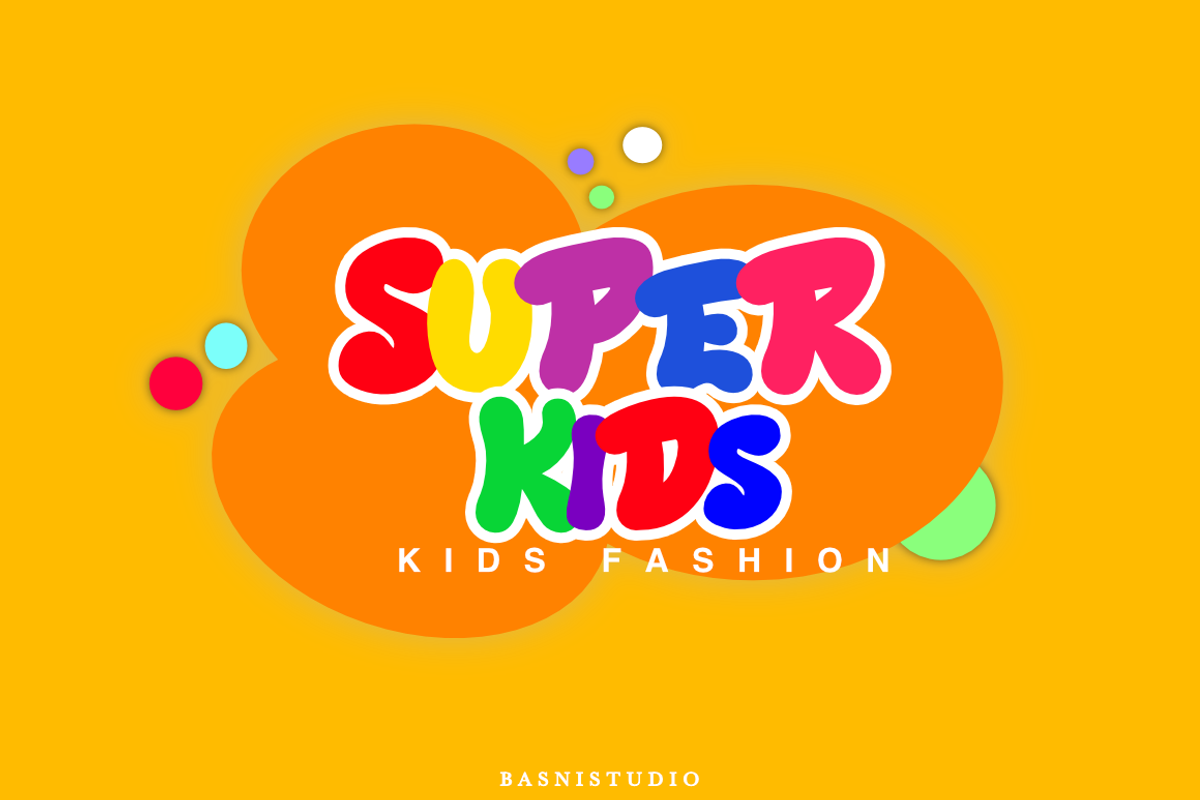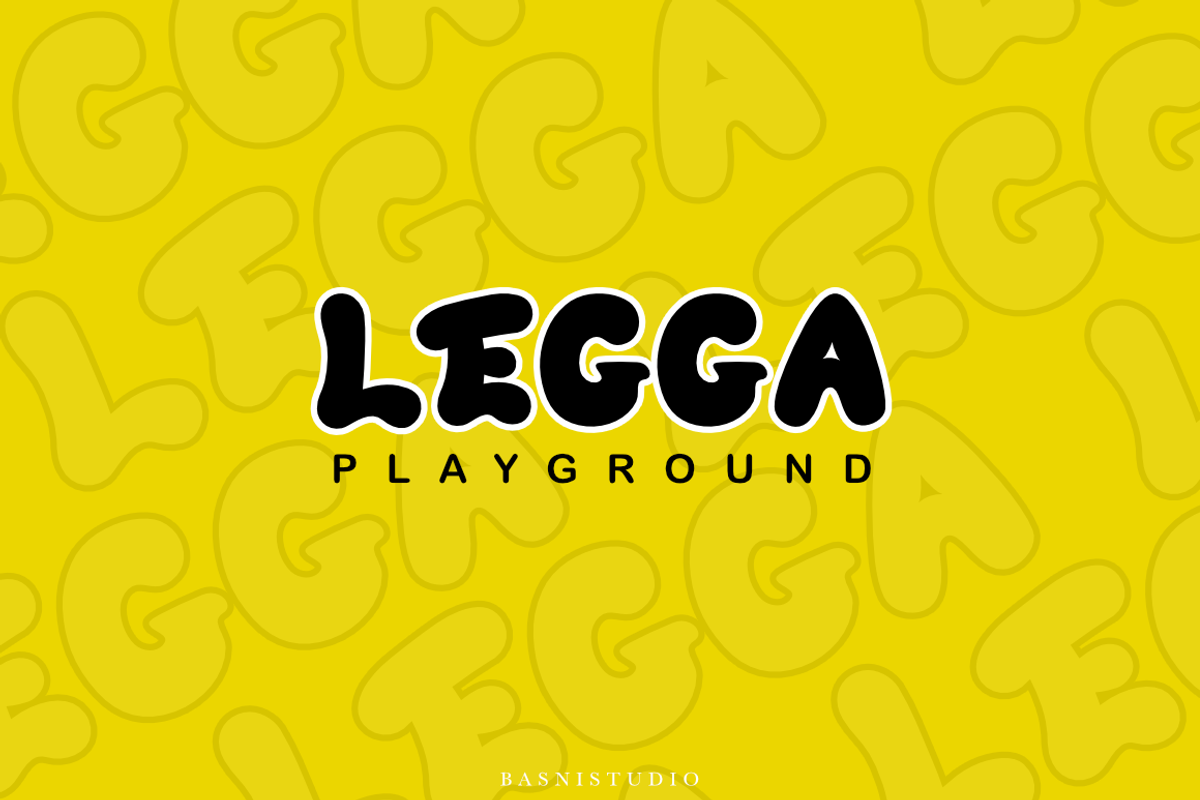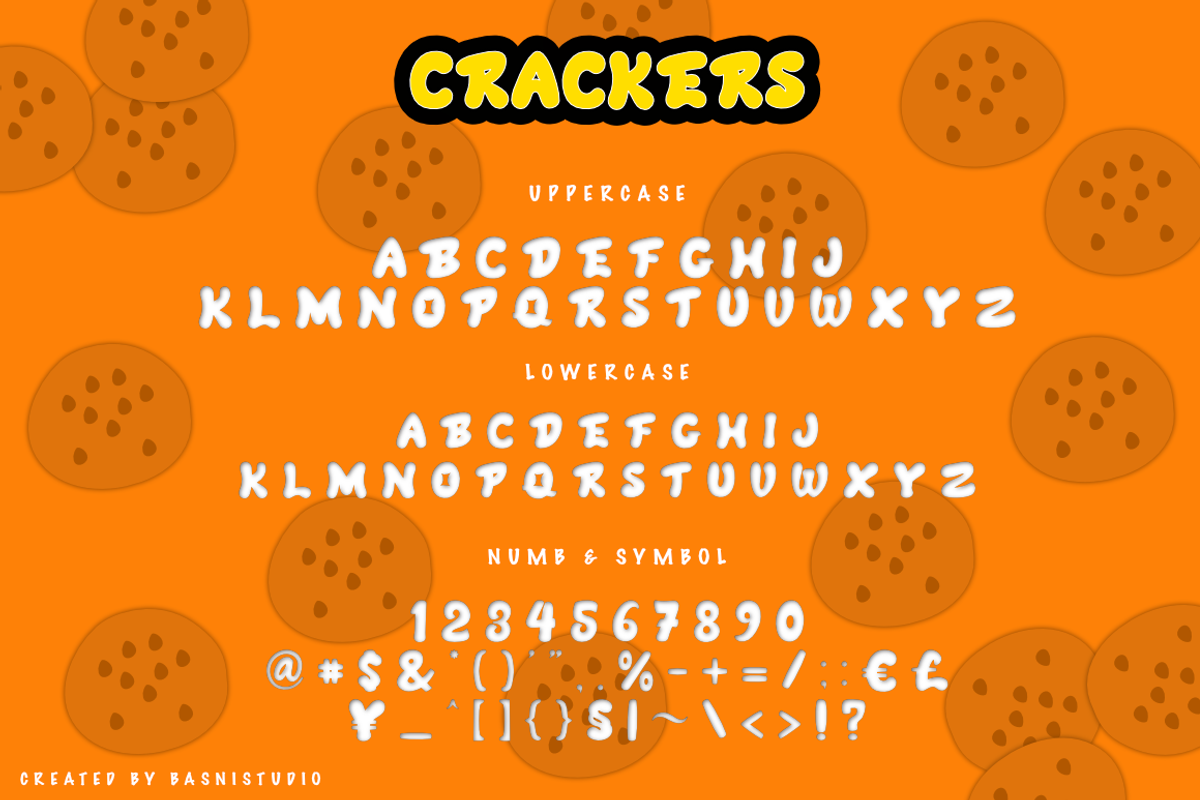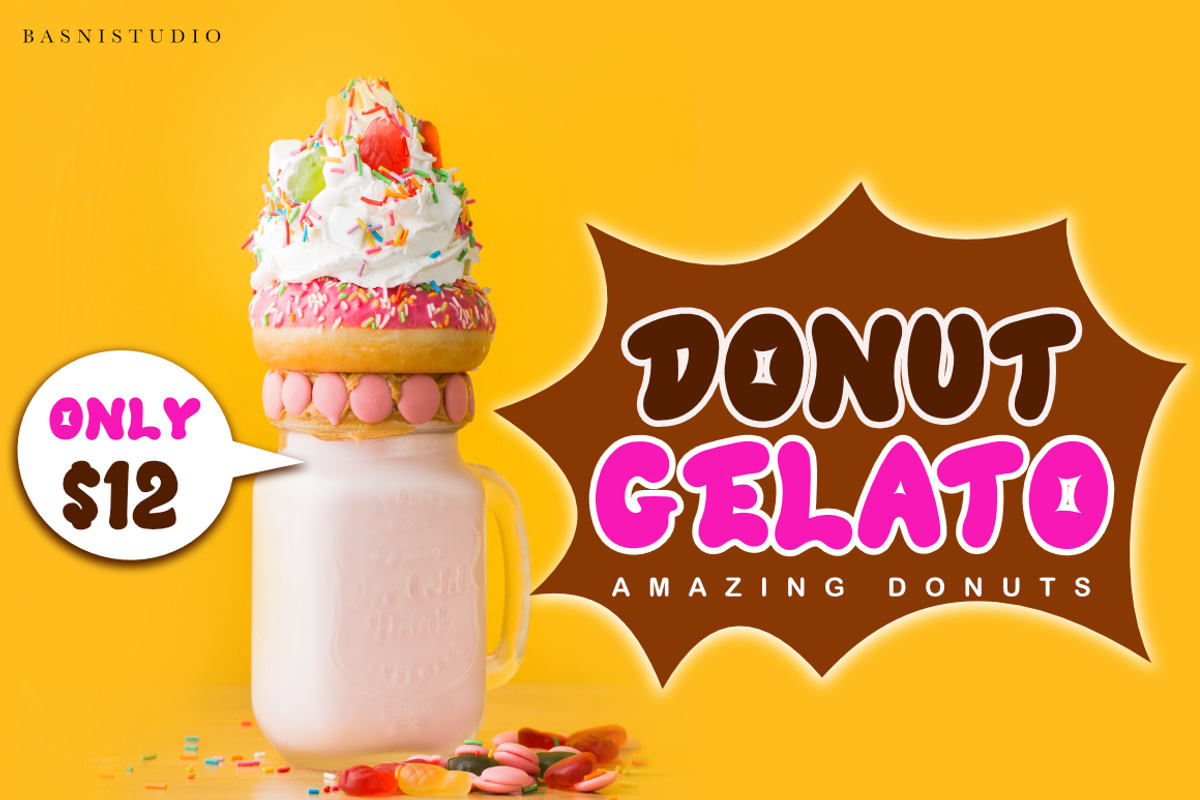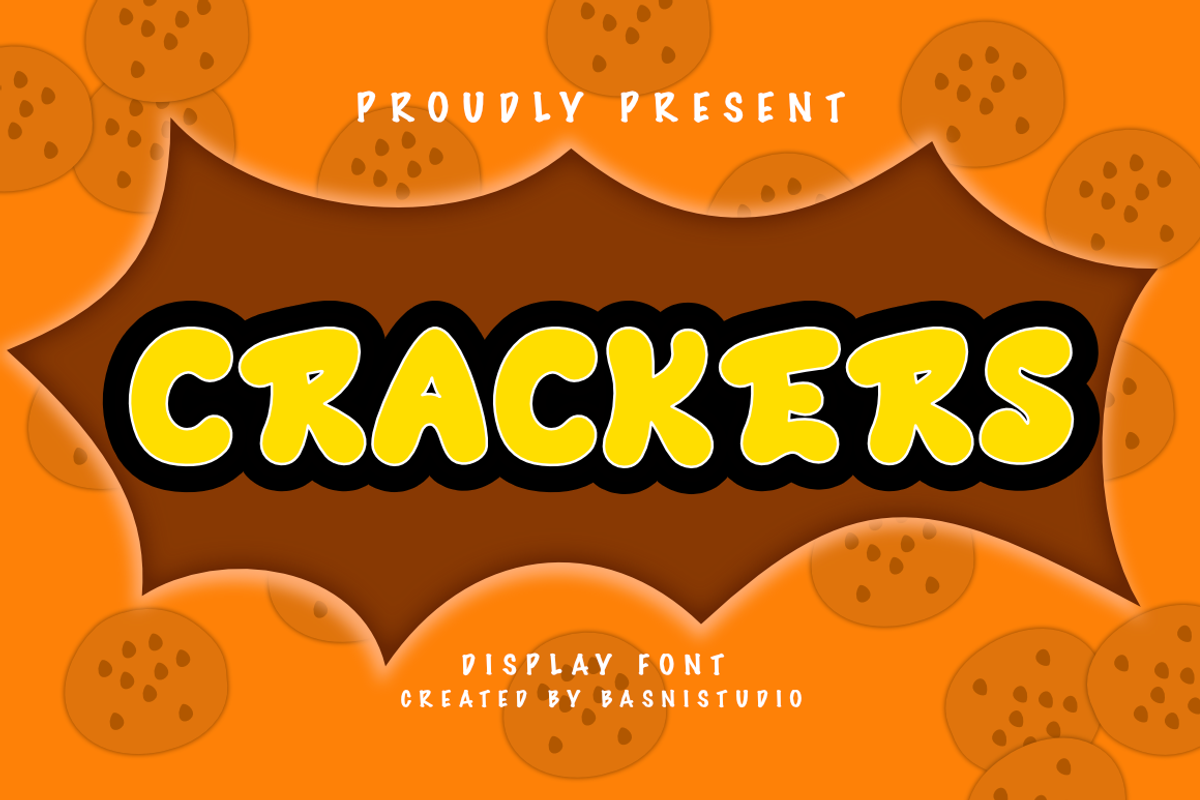
Crackers A Display Font
Introducing Crackers Handwritten font
Crackers looks Strong & Modern, made with details and precision, perfect for branding, websites, design invitation, and editorial designs. Includes all upper and lower case letters, multilingual support & punctuation. everything can be easily accessed using software that supports OpenType. What’s include: